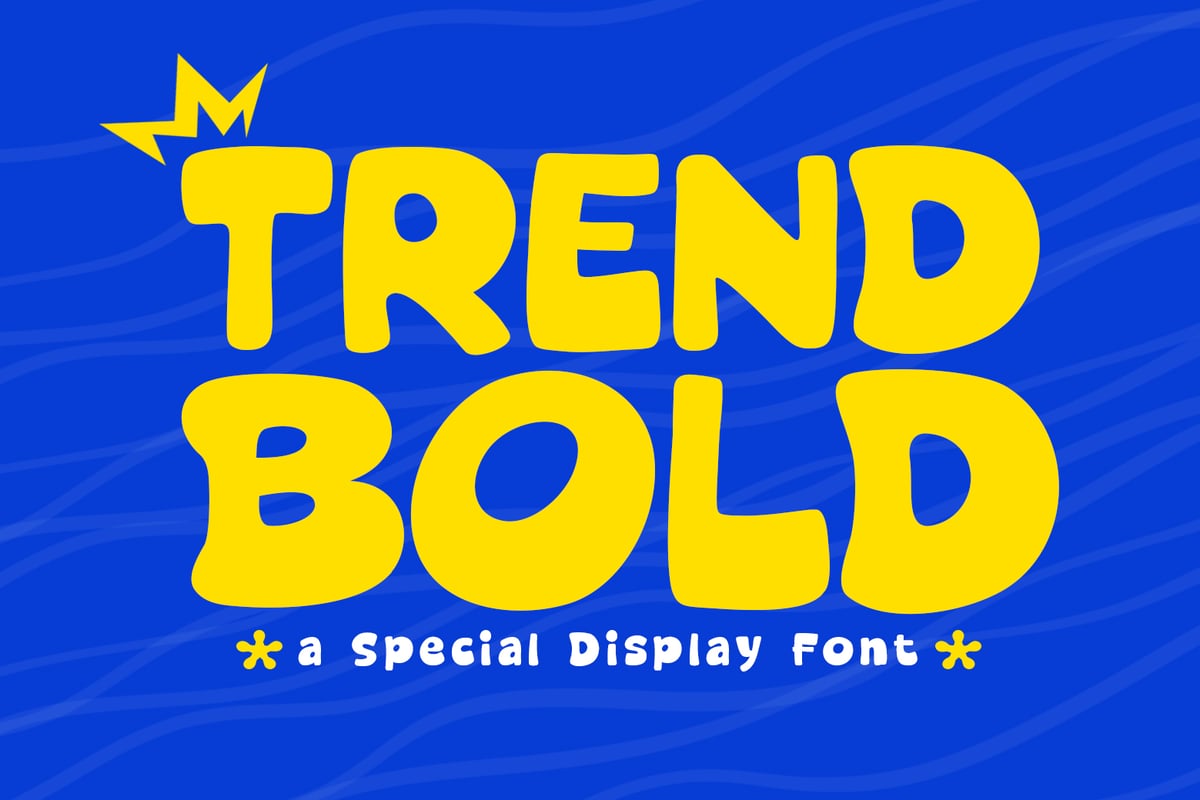
Trend Bold - Cozy & Display Font
Transform your designs with Trend Bold's irresistibly cozy and playful display font that radiates pure childlike wonder!
This contemporary handwritten typeface explodes with vibrant personality and spirited energy that instantly grabs attention. Each character overflows with charm, making it the ideal choice for crafting memorable designs that truly pop from the crowd.
Trend Bold's commanding presence and delightful character design make it remarkably versatile across numerous design applications:
- Eye-catching posters and promotional materials
- Distinctive logos and branding
- Magazine layouts and editorial design
- Book covers that demand attention
- Banners and signage